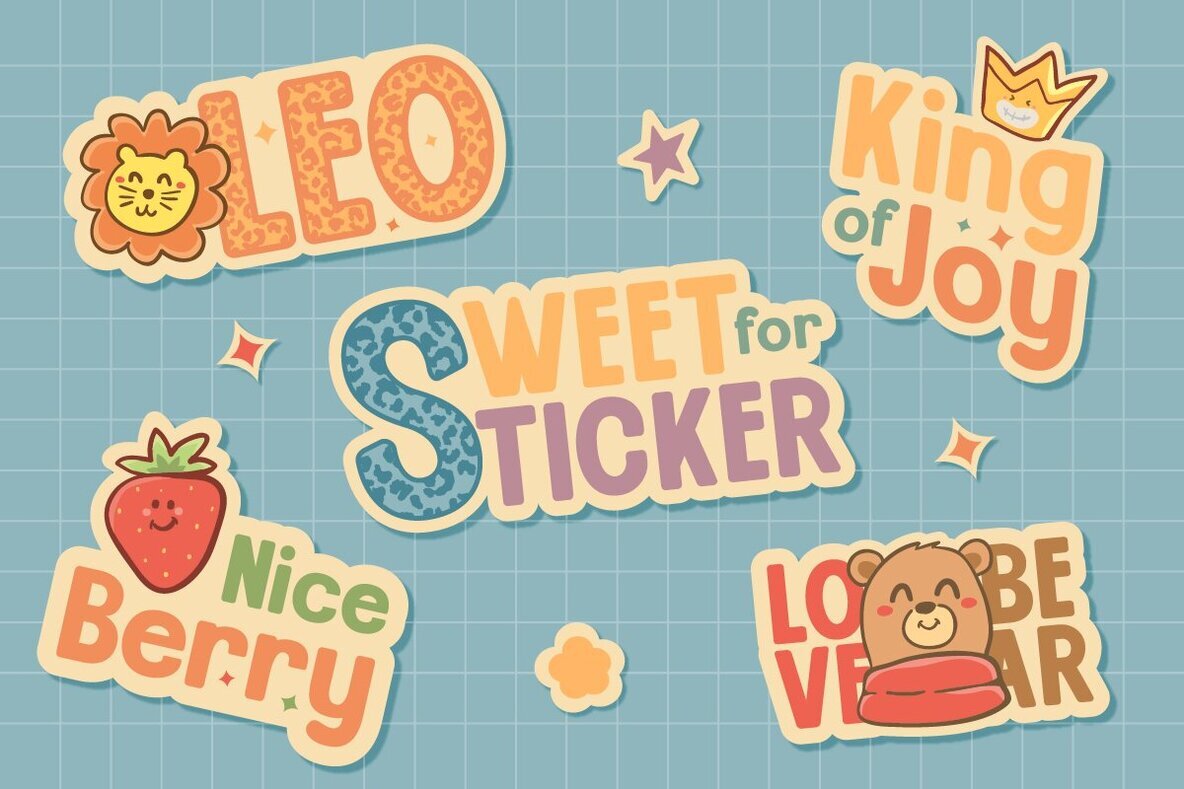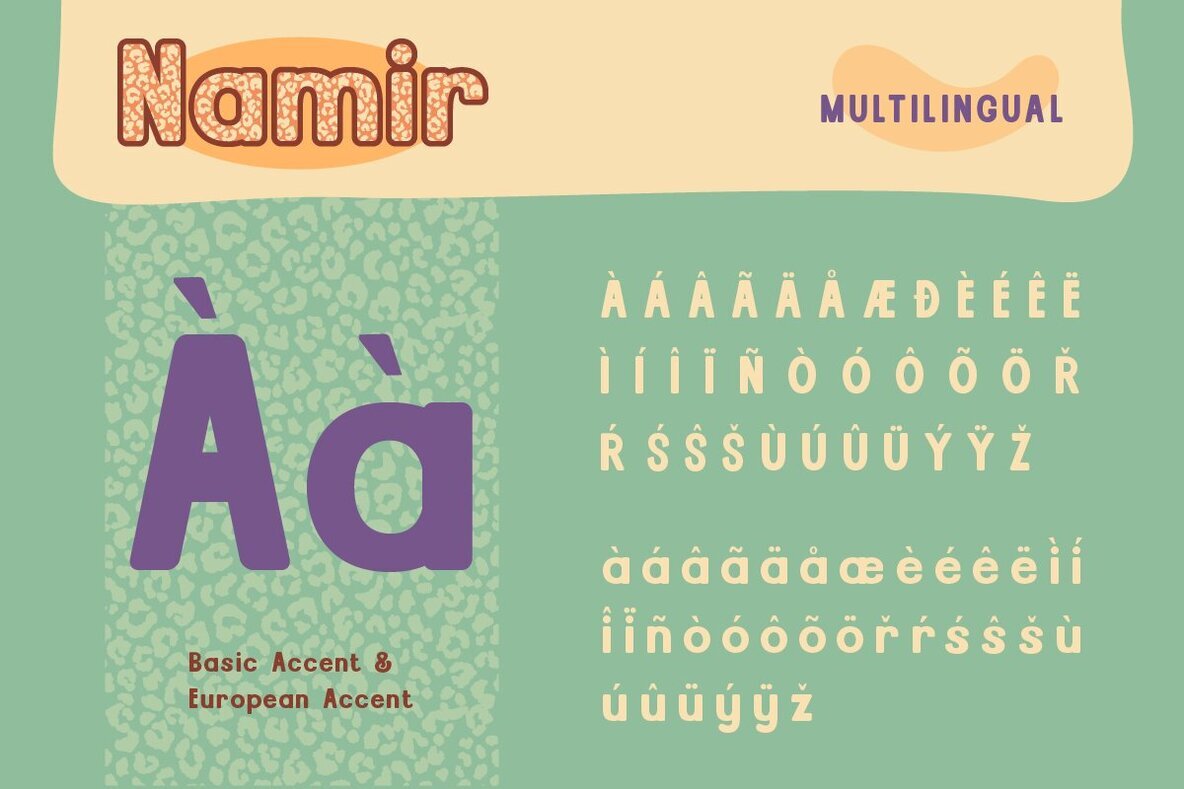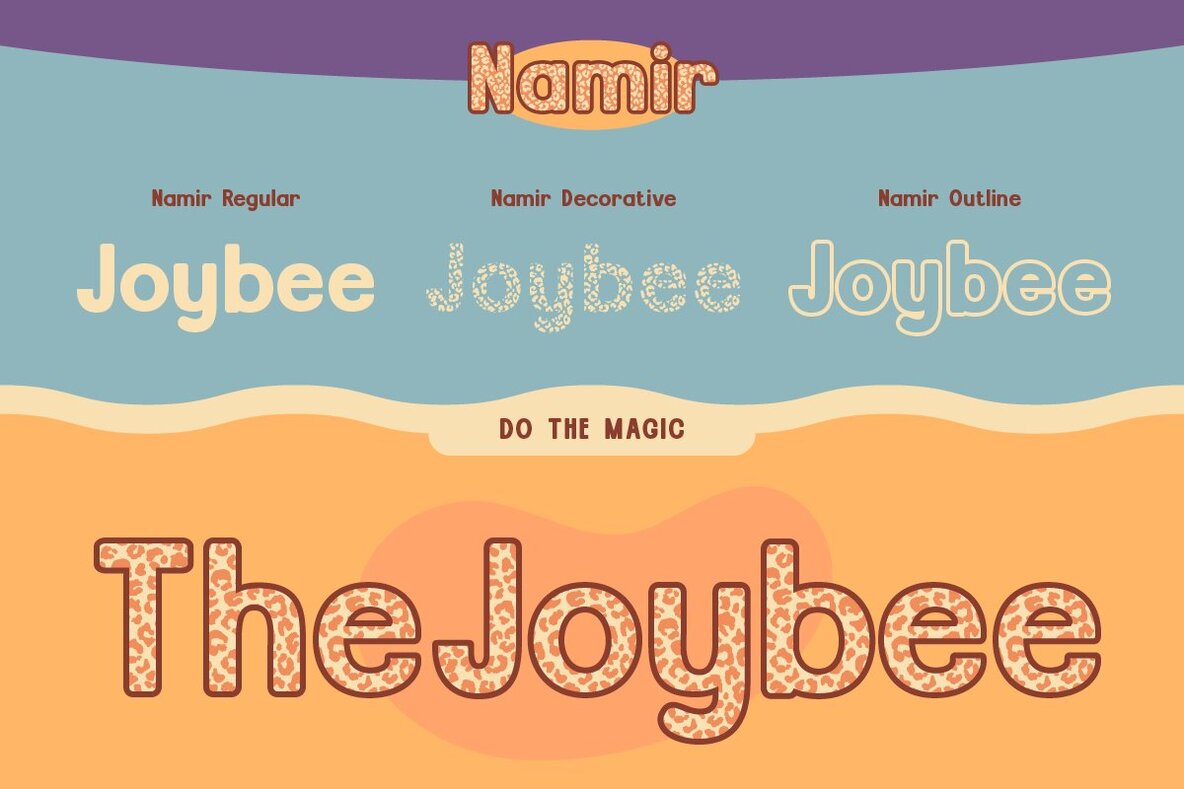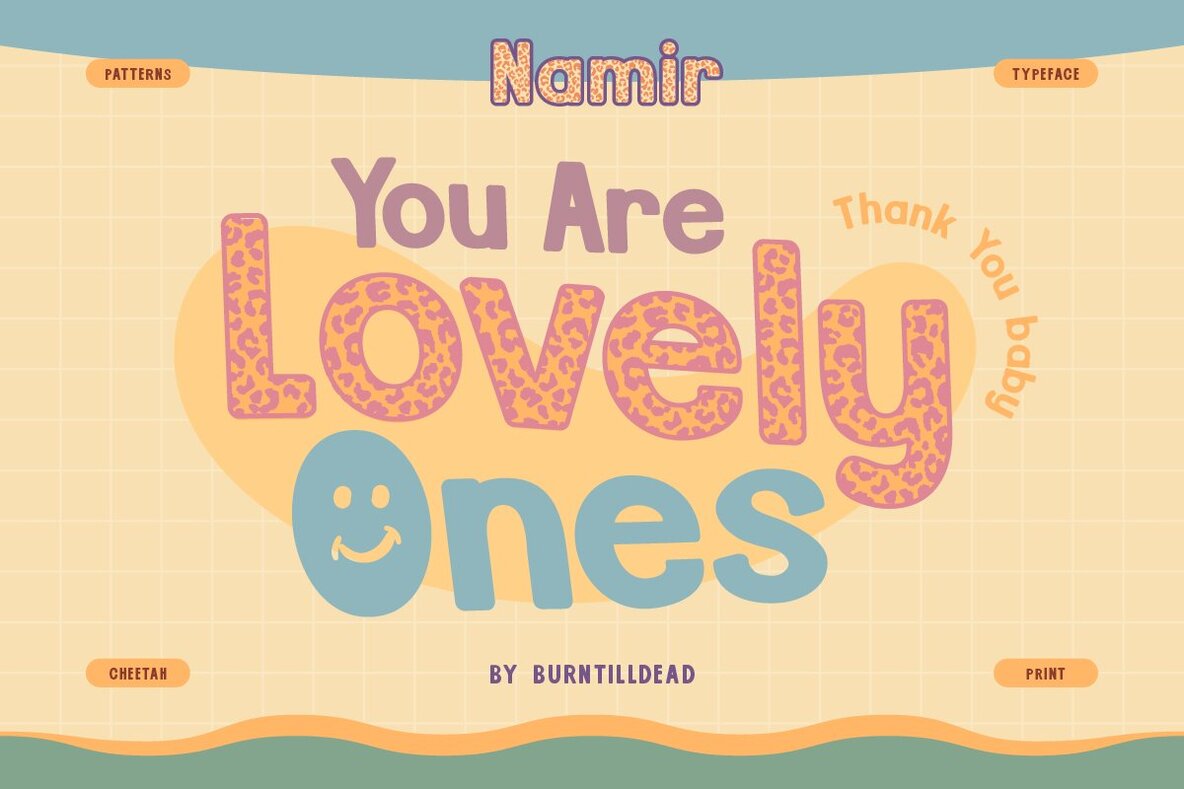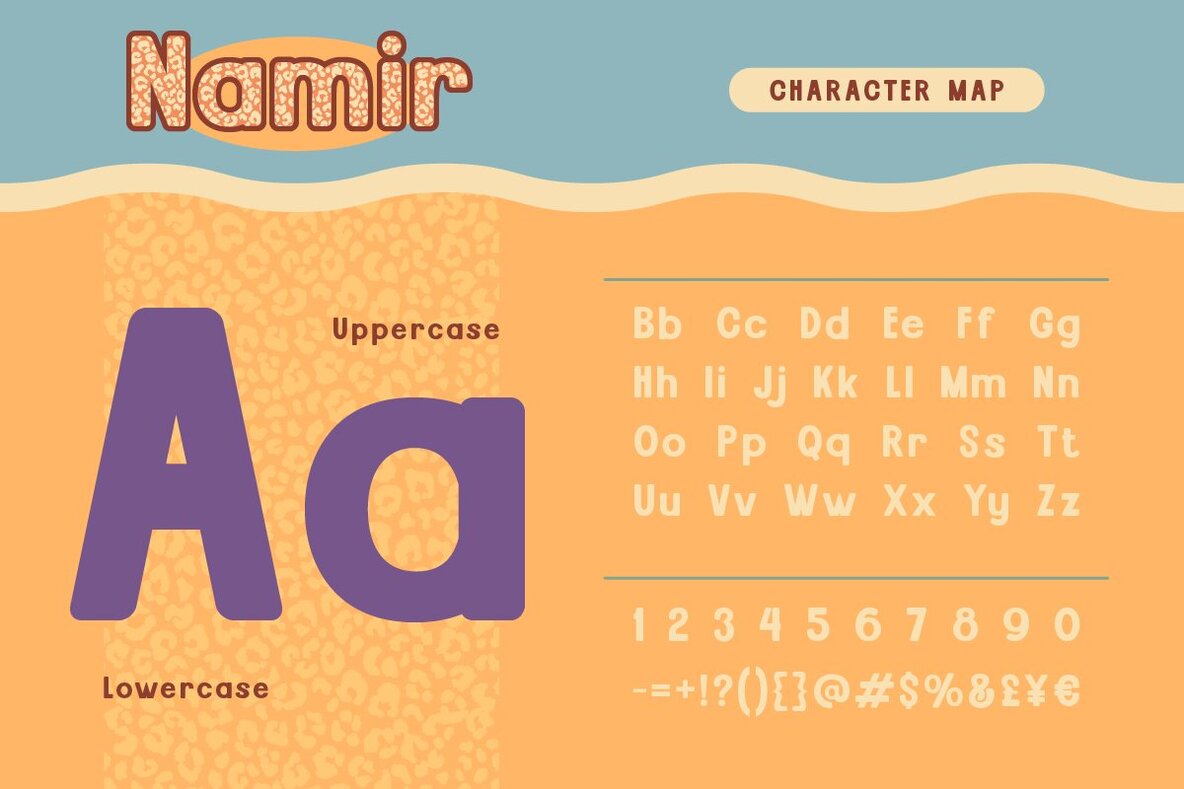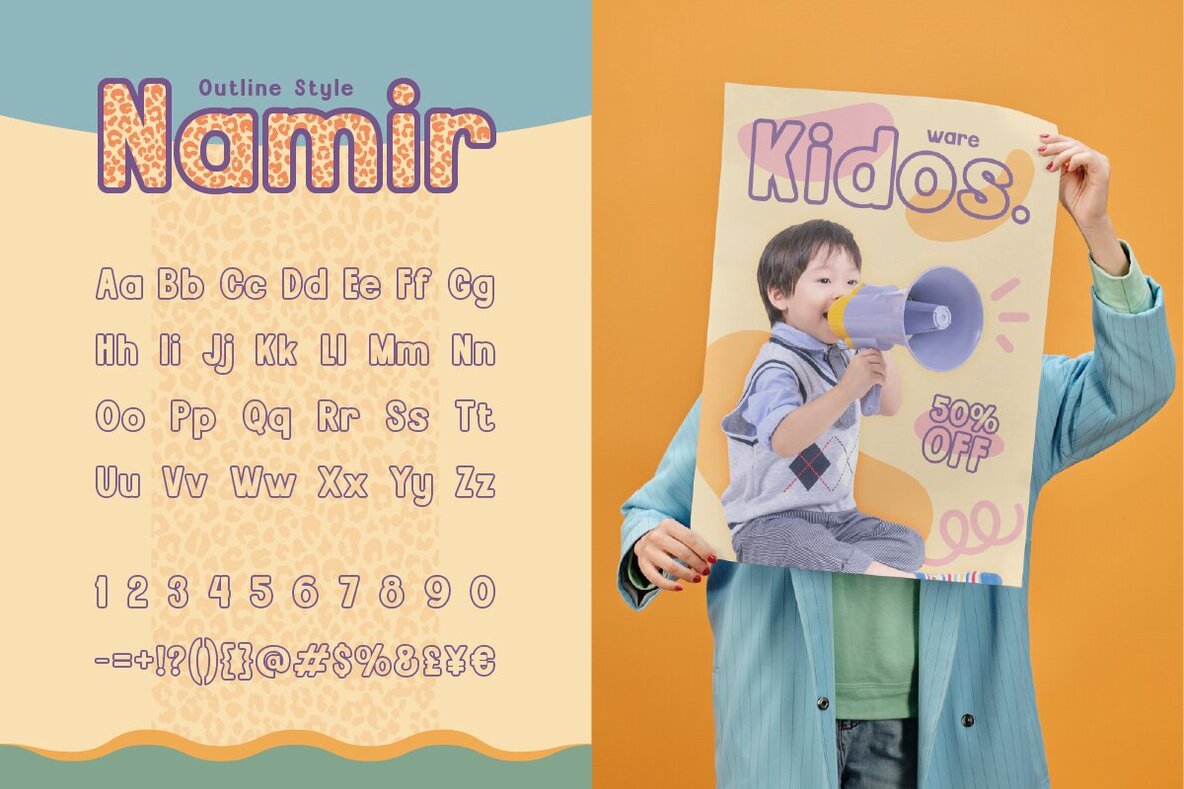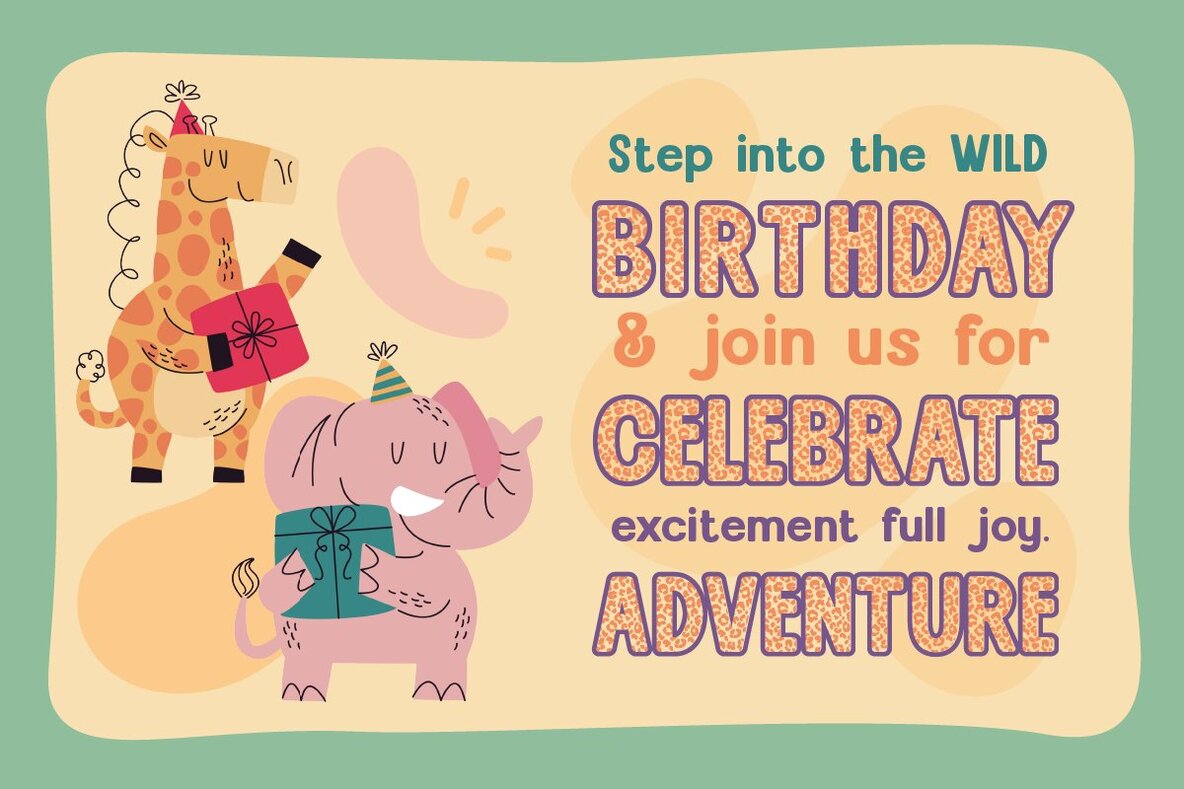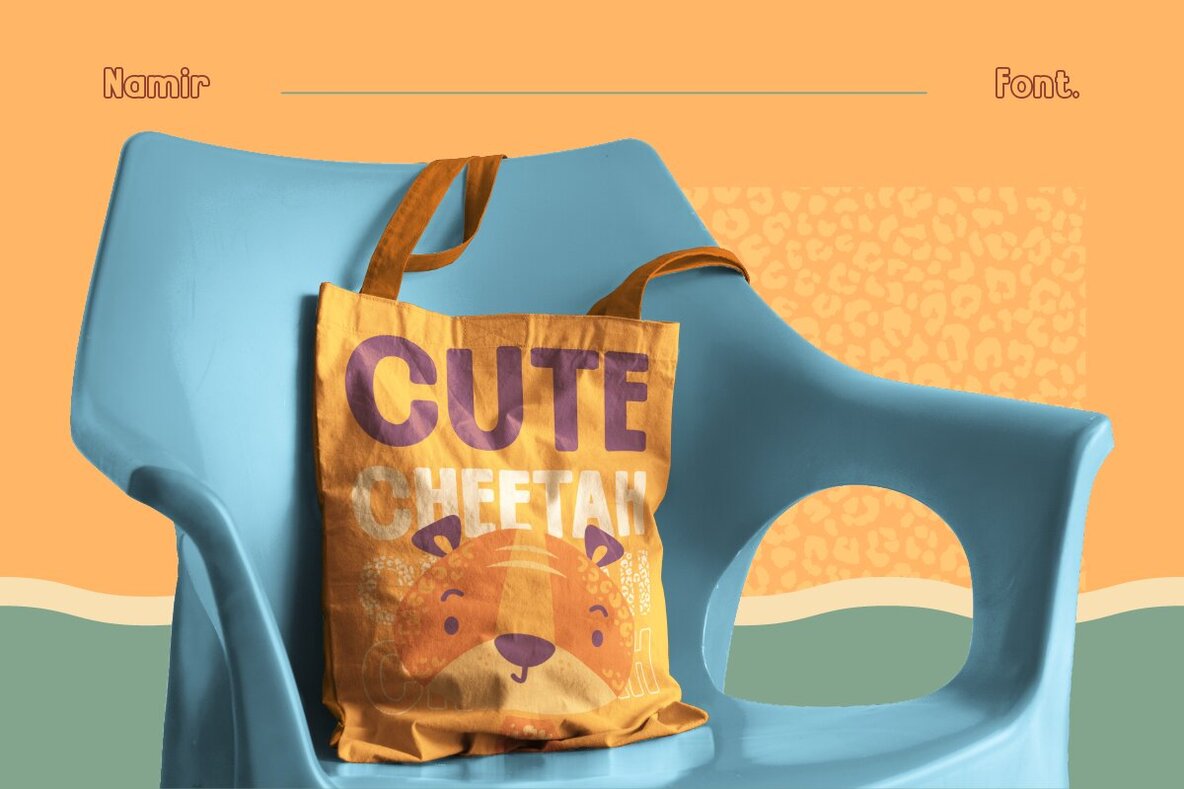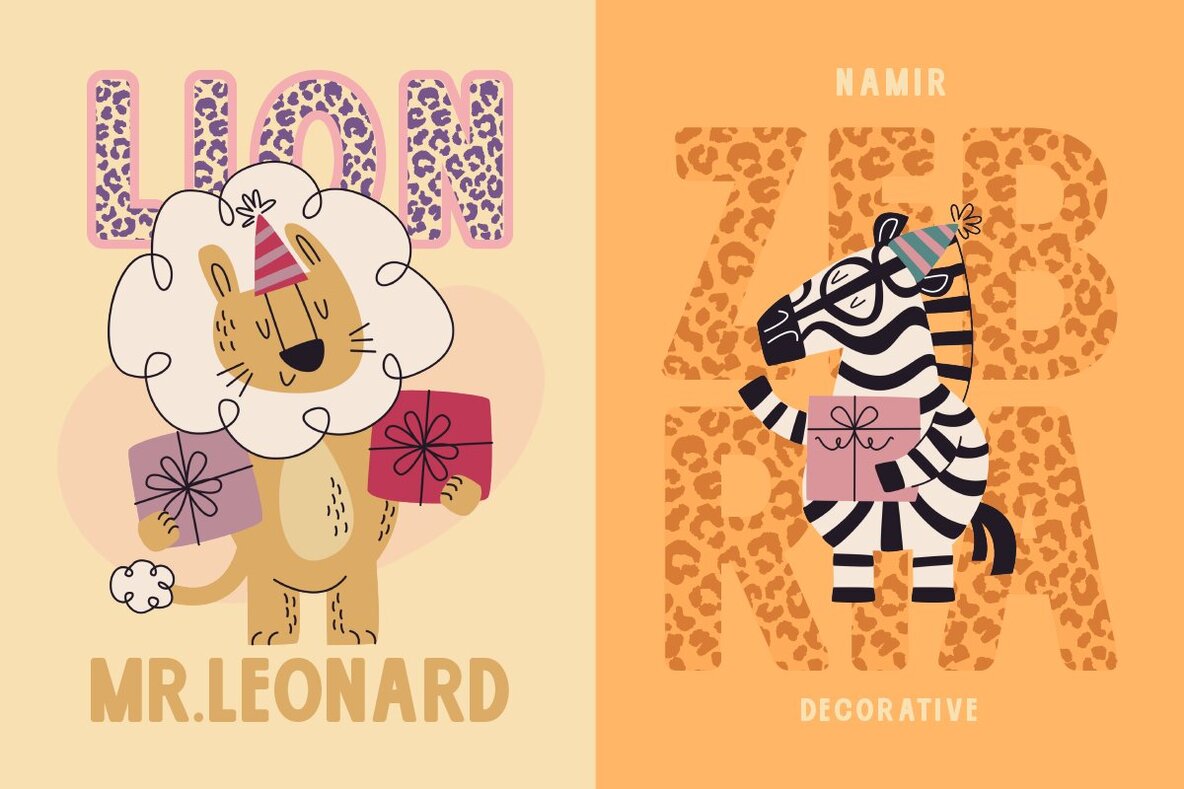
Namir Font
Say hello to Namir, a font with cheetah theme. This font has cheetah pattern on every each letter. This font has three styles that you can combine and create a magic in your design projects. Namir has a unique, cute and adorable style so it is suitable for design project that's playful and fun but still impactful. Features: